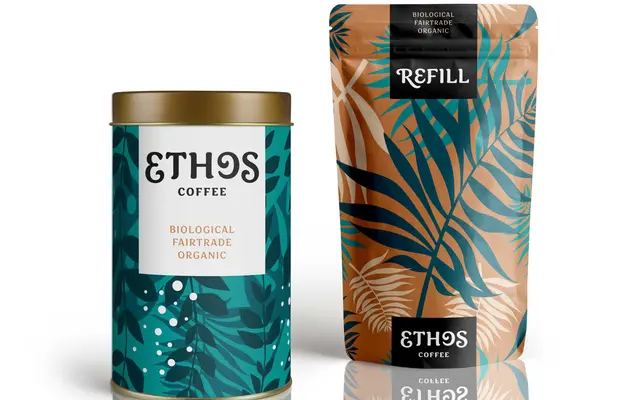
A rounded display face with calligraphic roots and organic flowing letterforms, spanning nine weights from filigree-light to bubblegum-heavy.
Built on a single-stroke written construction, Sirenia's letterforms read as naturally grown rather than mechanically drawn, with rounded terminals and smooth transitions throughout. The nine weights shift personality considerably: lighter cuts feel refined and delicate, medium weights read as brush-like, and heavier weights tip into something playful and psychedelic. At 1,270 characters, the family includes swash variants for initial, medial and final positions, giving designers room to build custom lettering arrangements for packaging, branding and advertising.
Sirenia is classified as display due to its expressive, calligraphic construction and rounded, flowing letterforms that shift character dramatically across weights, from elegant to near-psychedelic. Its single-stroke drawn construction and swash variants place it firmly outside workhorse text type territory.